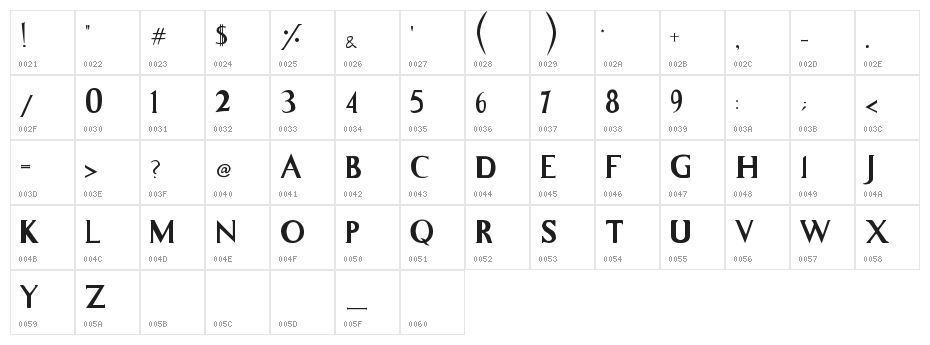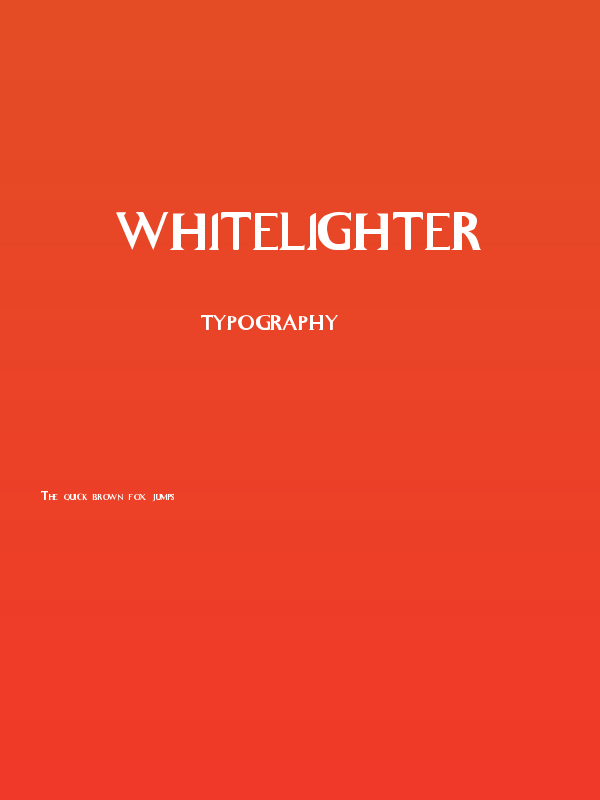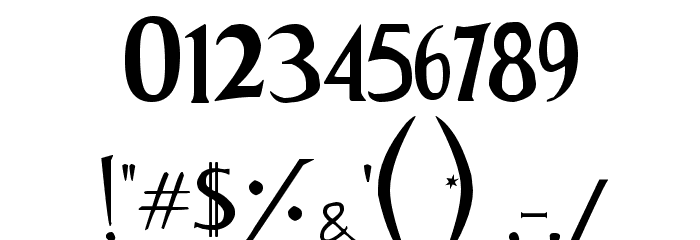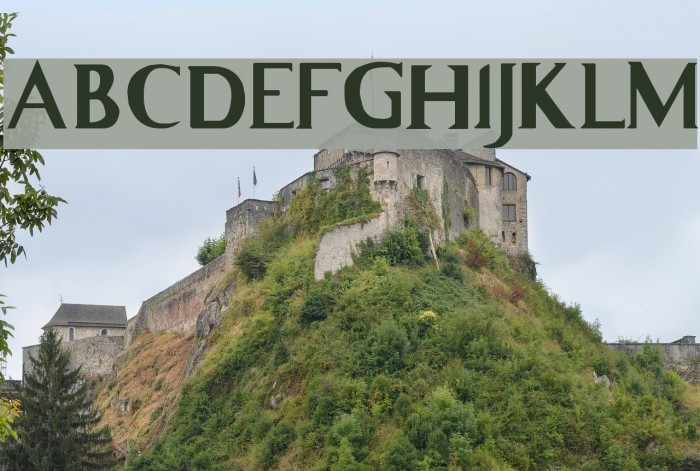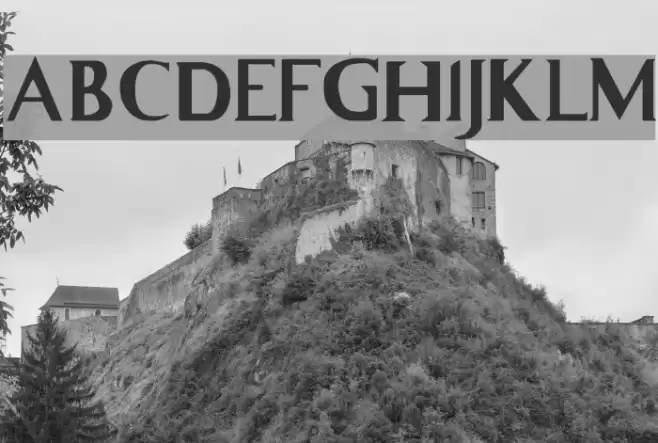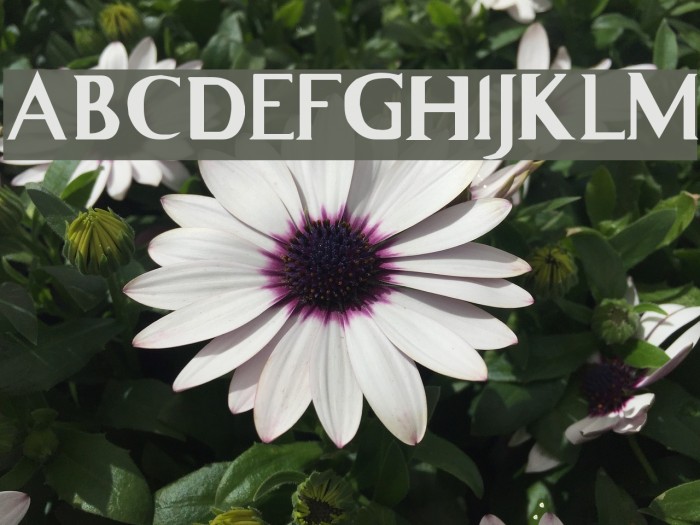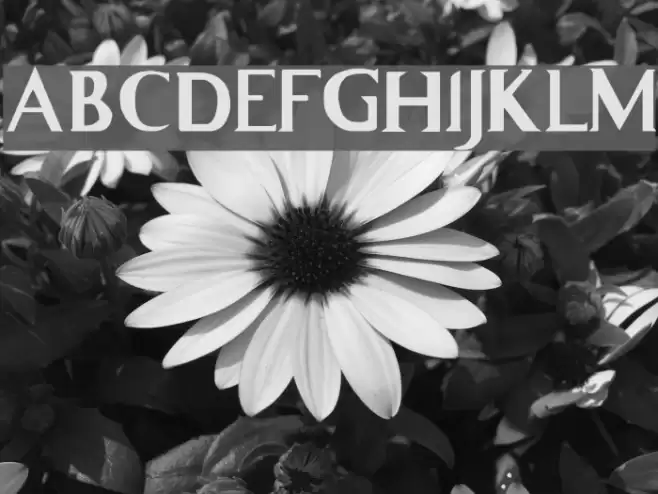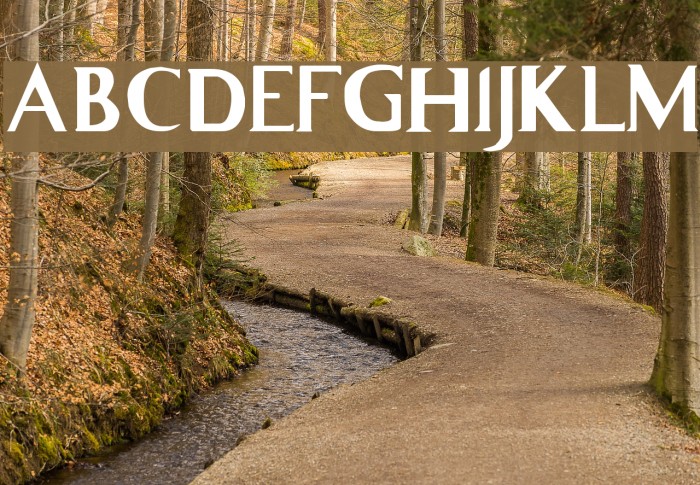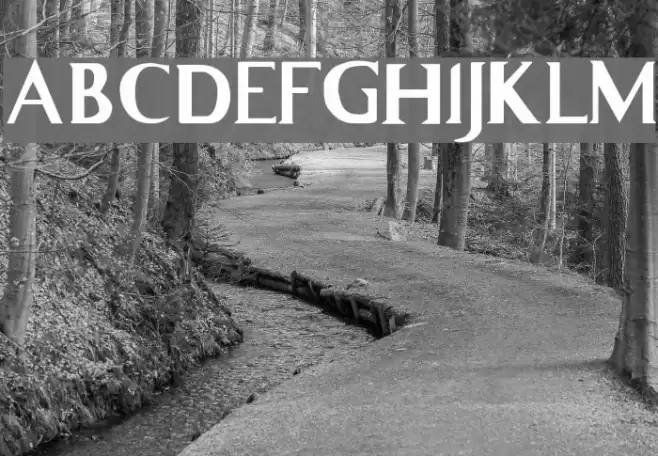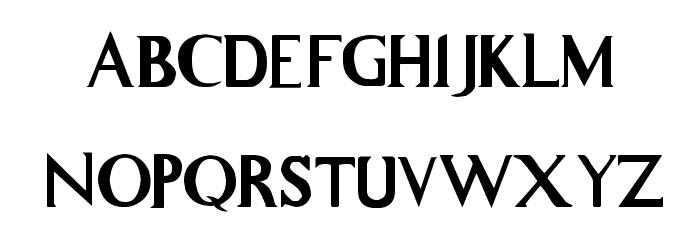
Whitelighter Font
Whitelighter Description
This font features a classic serif style with elegant, sharp serifs that give it a sophisticated and timeless appearance. The uppercase letters are bold and commanding, while the lowercase letters maintain a consistent and harmonious flow. The numerals are distinct and clear, making them easily readable. Special characters are well-integrated, maintaining the overall aesthetic of the font. The design is versatile, suitable for both formal and creative applications, offering a balance between tradition and modernity.
| Overall Style | Classic |
| Use Case | Headlines, Body text, Logos |
| Proposed Projects | Ideal for book covers, editorial design, branding, and formal invitations. |